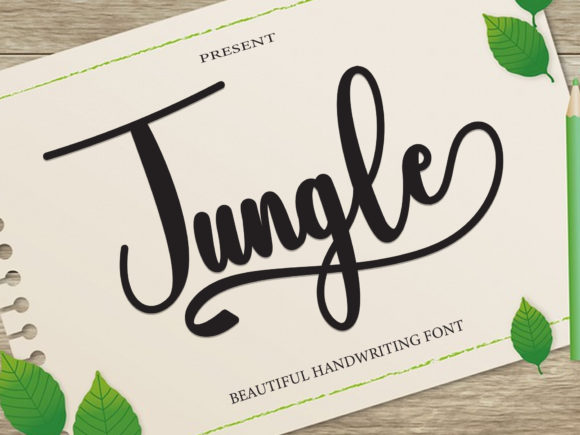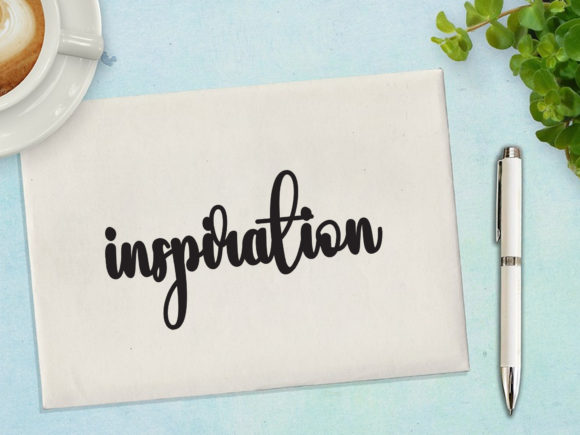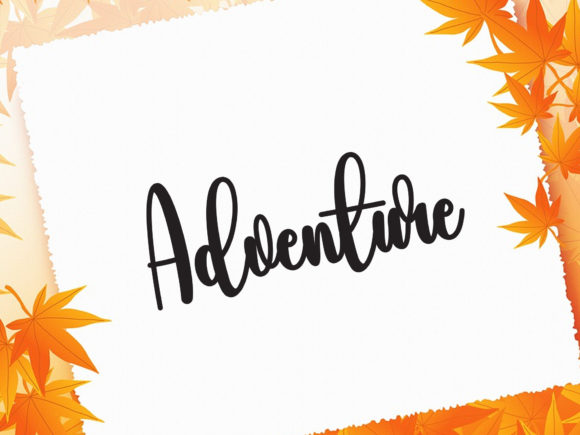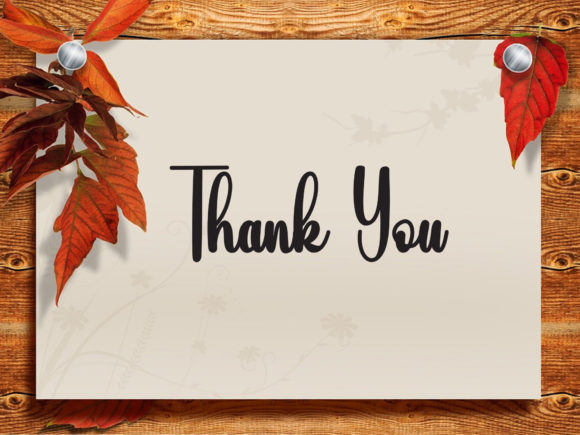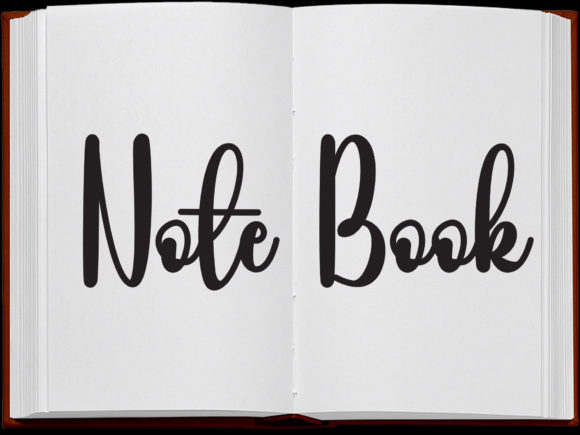
Jungle Font
About Jungle Font
Jungle is a sweet handwritten font that is made with great care in order to produce the expected outcomes. This font can be used for writing cards, invites, letters and posters.